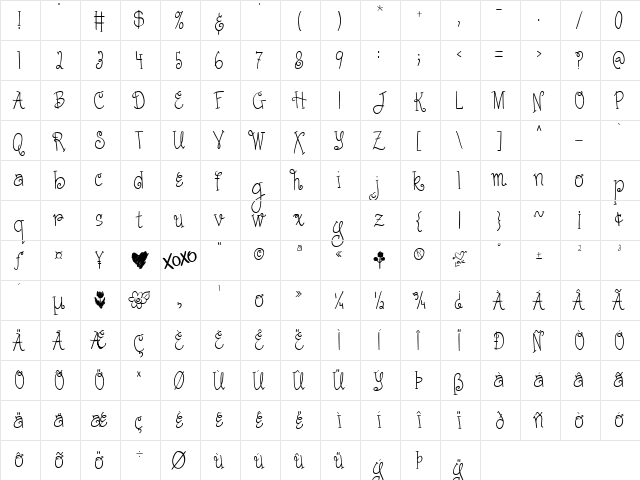
Austie Bost Somersaults Regular
| Foundry | Austie Bost Fonts |
| Designer | Austin Owens |
Design Context for Austie Bost Somersaults Typeface
Austie Bost Somersaults is a composed and adaptable typeface that performs quietly and consistently across a wide range of design contexts.